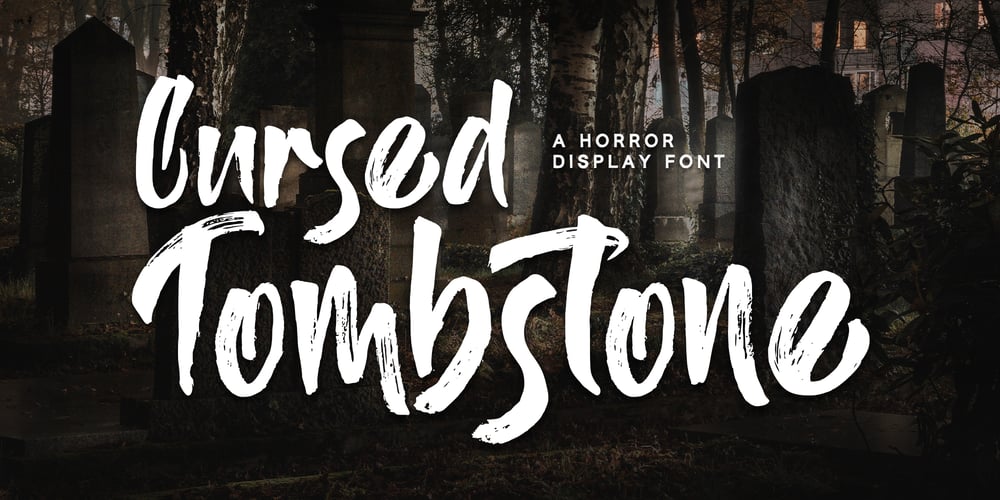
Cursed Tombstone Font Family was designed by Nadia Salsabila and published by Alpaprana. Cursed Tombstone contains 1 styles and family package options. Cursed Tombstone is a stunning horror display font with cute and playful feels. It will be perfectly used for Branding, Logo Design, Lettering, Logotype, Clothing, Poster, magazine, packaging, posters, shopping bags, t-shirts, book covers, photography, special events and other design project.